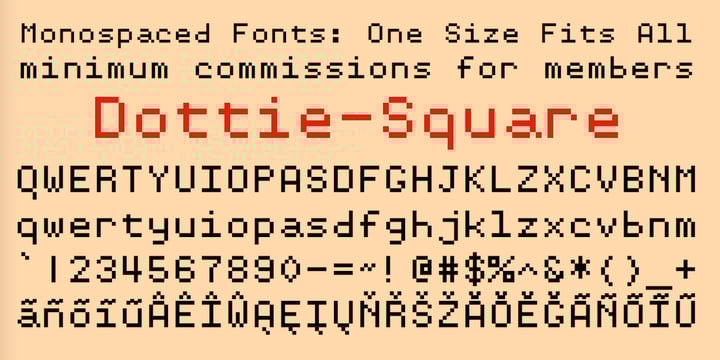
The characters for font b are 3.3*12=40 at this size. Support for the greek alphabet added.
Please suggest me some suitable fonts which will be more readable when printed in dot matrix printer.
Dot matrix font for receipt. Fonts per page 10 20 50 sort fonts. I'm using a rdlc report in my app. Unable to differentiate numbers with this font.
For impact receipt printers usually the font a is 10cpi and font b is 12 cpi, so set a page with of 33/10cpi=3,3 inchess=8.6cms. I tried printing my rdlc in dot matrix printer with the font arial. Looking for dot matrix fonts?
A pseudo 5x7 dot matrix font (albeit not really), which is designed in a manner to increase readability as in a sans serif font like arial. Dot matrix (tag) | fontstruct. This font belongs to the following categories:
The font in the receipt is a monospaced sans serif, so if you pick one that's close you could rough it up a bit to make it feel right: You'd probably have to rough it up a bit to make it feel more authentic. Caption this meme all meme templates.
If you want to create professional printout, you should consider a commercial font. On this page you can download dot matrix font version macromedia fontographer 4.1 24.03.00, which belongs to the family dot matrix (regular tracing). For receipt printers you can establish a page length of 11 inchess=27.94 cms.
Ff dot matrix fonts from the fontfont library. In the receipt each and every section should be printed in a various font sizes and two different colors. Most fonts on this site are freeware, some are shareware or linkware.
A common dot matrix font of tax invoice , a dot matrix font often seen on carrefour supermarket receipt, extracted from printer's chip. Download dot matrix for free on allfont.net. Unusual dot matrix printer font one of dot matrix fonts that can be customized by us within 30m.
Their shapes and sizes are similar but not correct. If you wanna get precise receipt fonts, please check in thermal or dot matrix page. Dot matrix receipt template latest with 1920x0 resolution.
Ff dot matrix is a display font family of 5 weights by stephan müller and cornel windlin, suitable for editorial & publishing, logo, branding & ci, and poster. The reason it's called rntg is because it's the work for a fictional communication standard. 3 free receipt fonts · 1001 fonts.